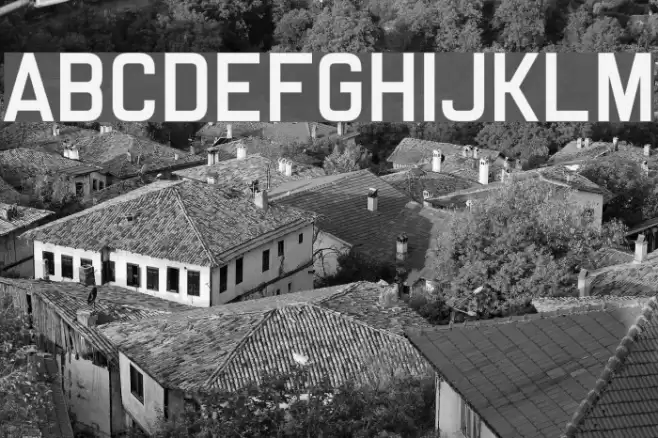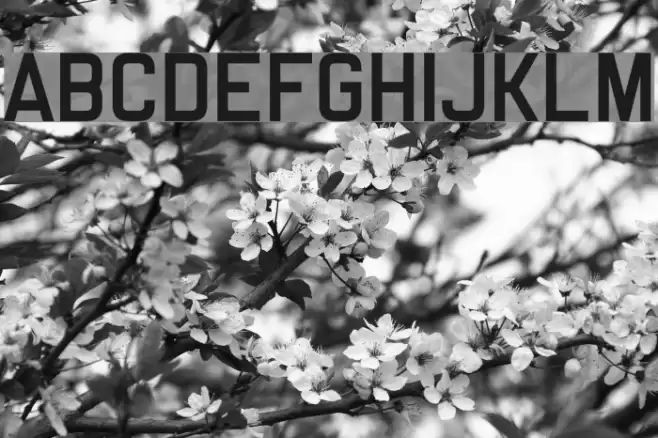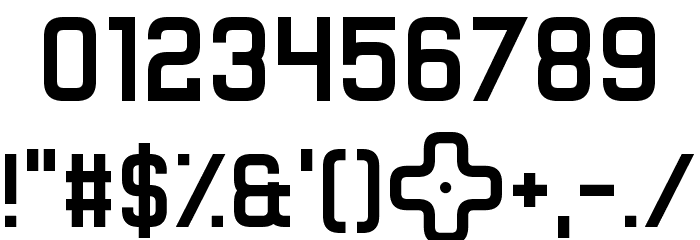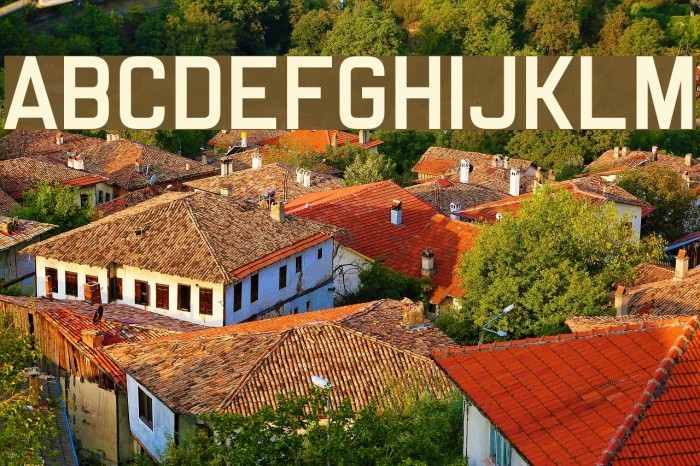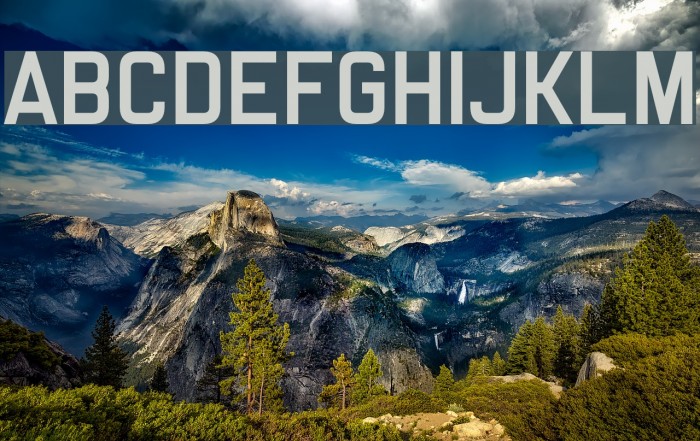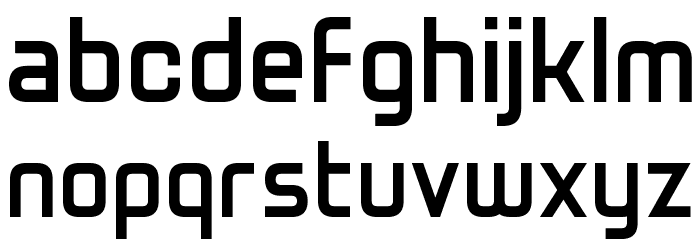
Truly Madly Dpad Font
Truly Madly Dpad Description
This font features a modern and geometric design with clean lines and a structured appearance. The characters are uniform in width, contributing to a monospaced feel, though they are not strictly monospaced. The uppercase letters are bold and assertive, while the lowercase letters maintain a consistent style with rounded edges that soften the overall look. The numerals are clear and easy to read, matching the style of the alphabetic characters. Special characters are distinct and maintain the geometric theme, adding versatility to the font. The overall appearance is sleek and contemporary, making it suitable for a variety of digital and print applications.
A modern, geometric font with clean lines and a structured, contemporary appearance from Uncategorized fonts.
- Proposed Projects: Ideal for tech branding, digital interfaces, modern advertising, and editorial design.
- Use Case: Headlines, Logos, Digital Interfaces